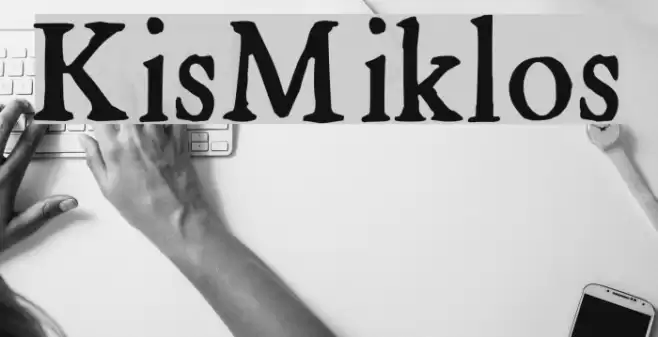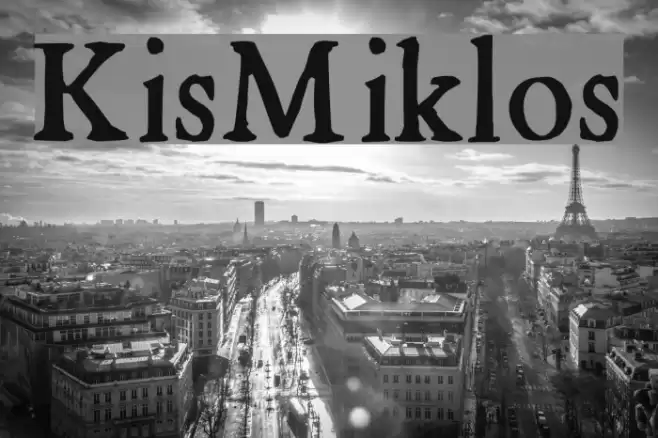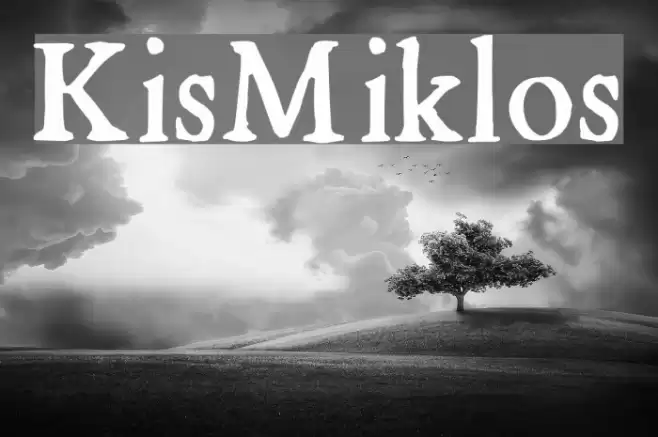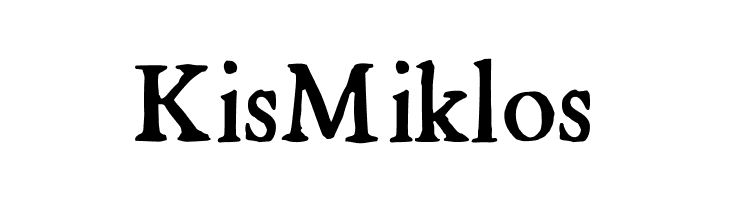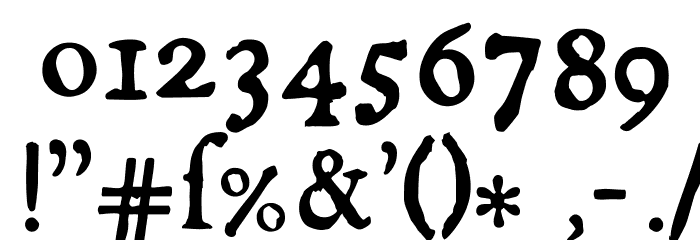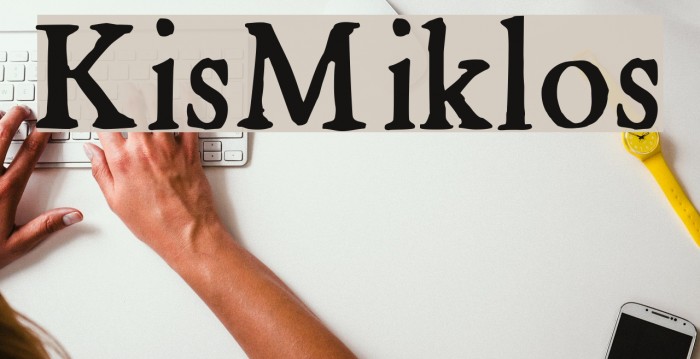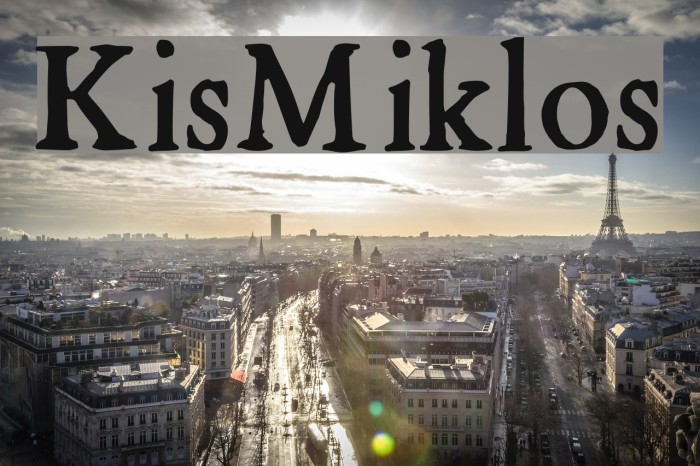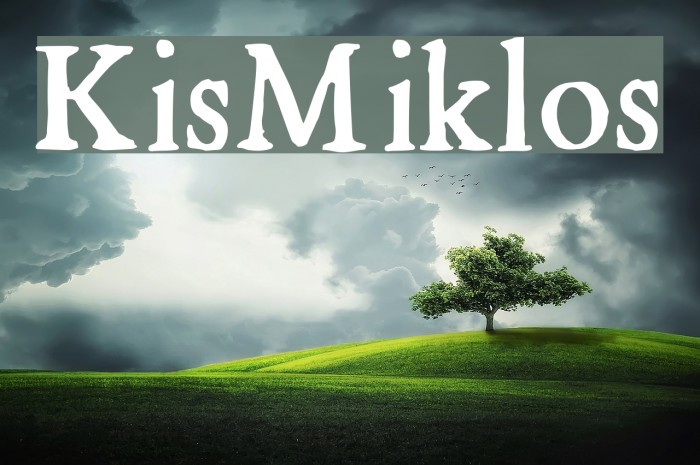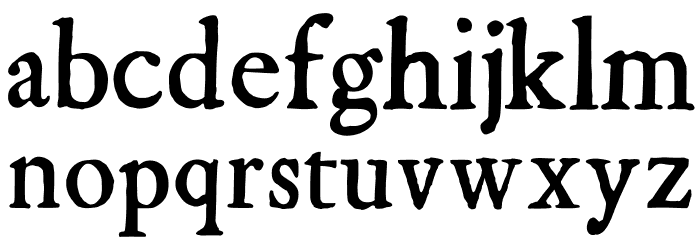
KisMiklos
This font features a classic serif style with a distinct vintage flair. The characters exhibit a slightly uneven baseline, giving them a hand-crafted appearance. The serifs are pronounced, adding a touch of elegance and tradition. The uppercase letters are bold and commanding, while the lowercase letters maintain a consistent flow with subtle variations in stroke width. Numbers are robust and clear, ensuring readability. Special characters are designed with the same attention to detail, maintaining the overall aesthetic. This font is ideal for projects that require a touch of history and sophistication.
A vintage serif font with a handcrafted, elegant style.
- Proposed Projects: Ideal for book covers, historical documents, invitations, and branding that requires a classic touch.
- Category: Serif
- Overall Style: Vintage